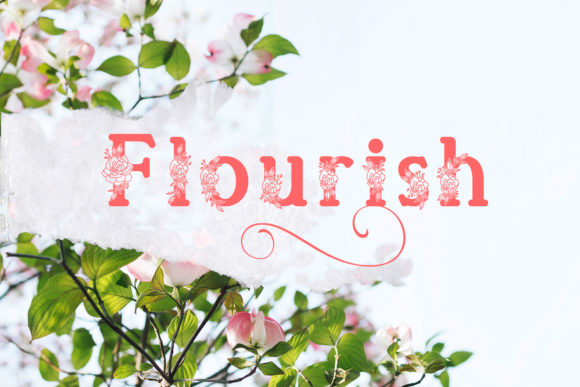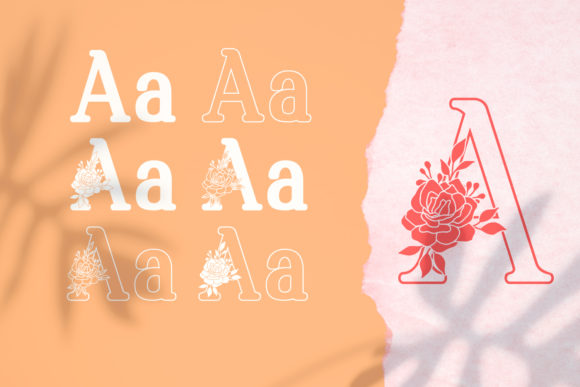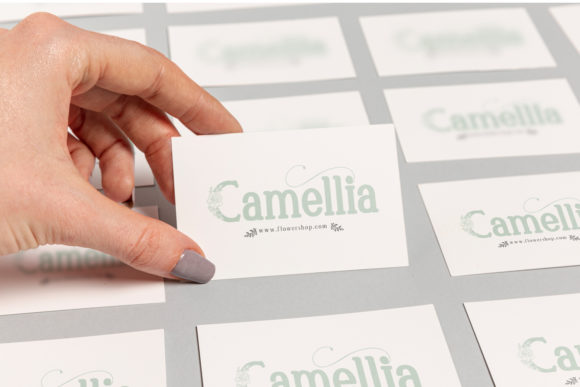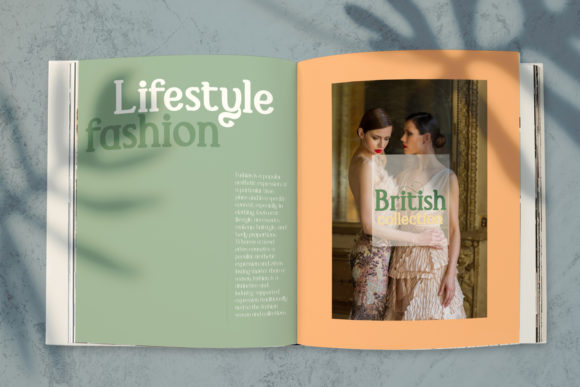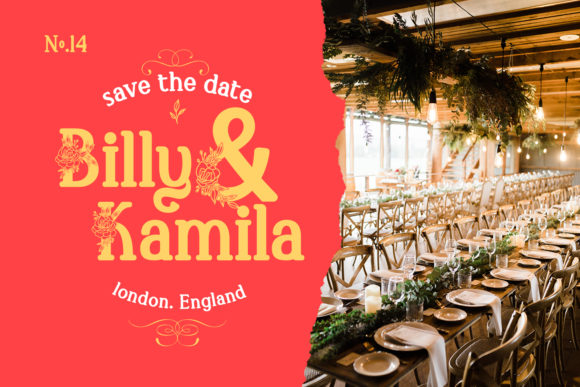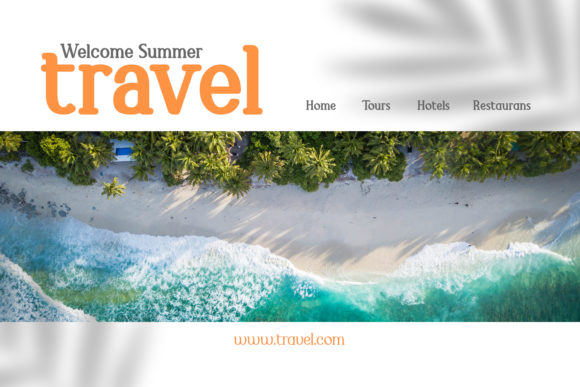
Unleash Your Creativity with El Katana Font: A Unique Decorative Font for Stunning Designs
Are you tired of using the same old fonts for your designs? Do you want to add a touch of elegance and sophistication to your projects? Look no further than El Katana Font, a beautifully crafted decorative font that’s perfect for creating gorgeous and timeless designs. In this article, we’ll explore the features and benefits of El Katana Font, and show you how to use it to take your designs to the next level.
What is El Katana Font?
El Katana Font is a unique and interesting decorative font that’s designed to add a touch of style and sophistication to your designs. With its incredibly stylish look, this font is perfect for designers and crafters who want to create stunning and eye-catching projects. Whether you’re working on a logo, quote, invitation, business card, or PowerPoint presentation, El Katana Font is the perfect choice.
Features of El Katana Font
So, what makes El Katana Font so special? Here are just a few of its key features:
- Unique and decorative design: El Katana Font has a one-of-a-kind design that’s sure to turn heads. Its decorative style is perfect for adding a touch of elegance and sophistication to your designs.
- Highly versatile: El Katana Font can be used for a wide range of projects, from logos and quotes to invitations and business cards.
- Easily readable: Despite its decorative style, El Katana Font is still highly readable, making it perfect for use in both digital and print projects.
Benefits of Using El Katana Font
So, why should you choose El Katana Font for your designs? Here are just a few of the benefits of using this amazing font:
- Adds a touch of elegance and sophistication: El Katana Font is the perfect way to add a touch of elegance and sophistication to your designs. Its decorative style is sure to impress your clients and audience.
- Helps you stand out from the crowd: With its unique and decorative design, El Katana Font is sure to help you stand out from the crowd. Whether you’re working on a logo, invitation, or business card, this font is sure to make your design pop.
How to Use El Katana Font
Using El Katana Font is easy! Here are a few tips to get you started:
- Logos: Use El Katana Font to create stunning logos that are sure to impress your clients. Its decorative style is perfect for adding a touch of elegance and sophistication to your logo designs.
- Quotes: Add a touch of style and sophistication to your quotes with El Katana Font. Its highly readable design makes it perfect for use in inspirational quotes, testimonials, and more.
- Invitations: Create beautiful and eye-catching invitations with El Katana Font. Its decorative style is perfect for weddings, birthday parties, and other special occasions.
- Business cards: Use El Katana Font to create stunning business cards that are sure to impress your clients. Its professional design makes it perfect for use in corporate and personal branding.
| Author | madeDeduk |
In conclusion, El Katana Font is a unique and decorative font that’s perfect for creating gorgeous and timeless designs. With its incredibly stylish look and highly versatile design, this font is sure to become a favorite among designers and crafters. Whether you’re working on a logo, quote, invitation, business card, or PowerPoint presentation, El Katana Font is the perfect choice. So why wait? Download El Katana Font today and start creating stunning designs that are sure to impress!